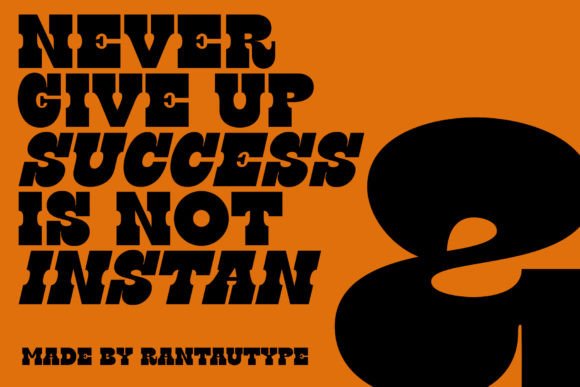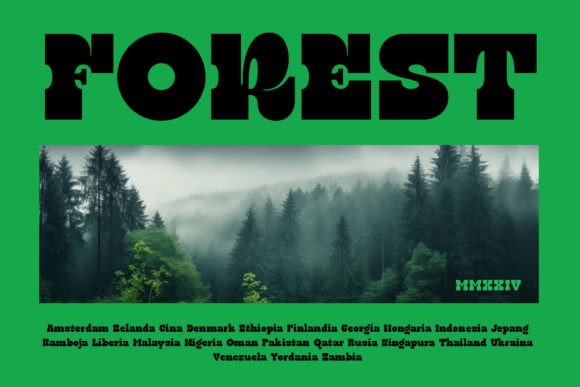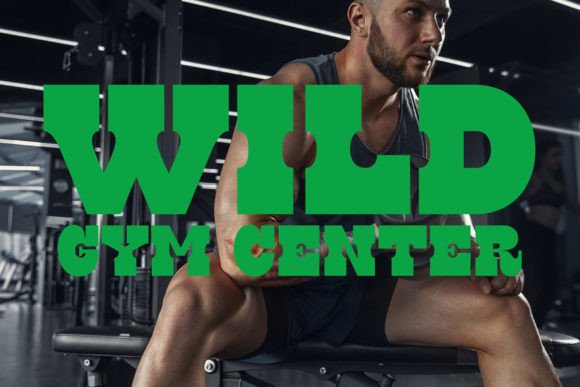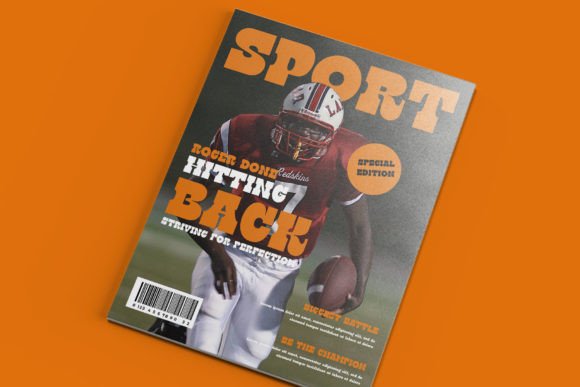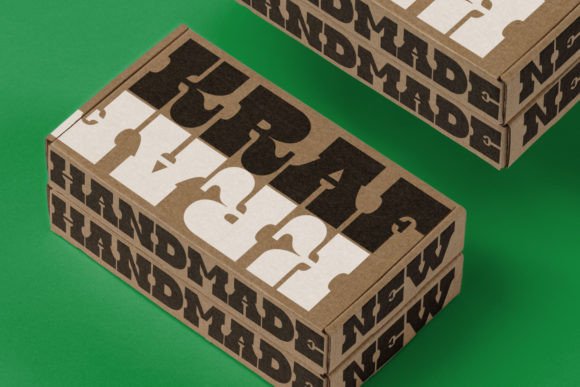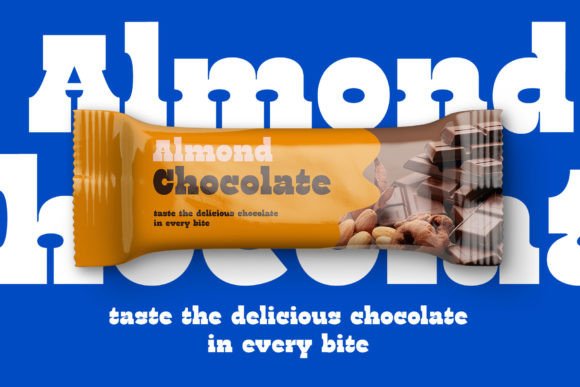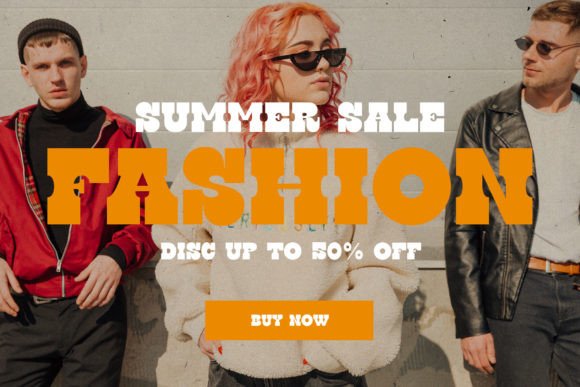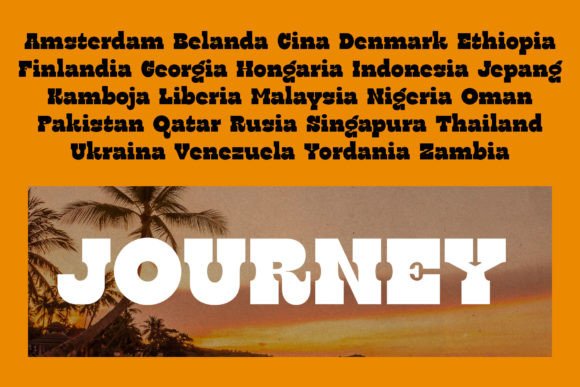
Ratego Font
Ratego is a vintage font with bold curves that make it look unique, funky, fun, modern, and versatile Font.
Its playful and charismatic characters evoke a sense of joy and whimsy, making it the perfect choice for projects that seek to transport audiences back in time or evoke a touch of vintage charm.